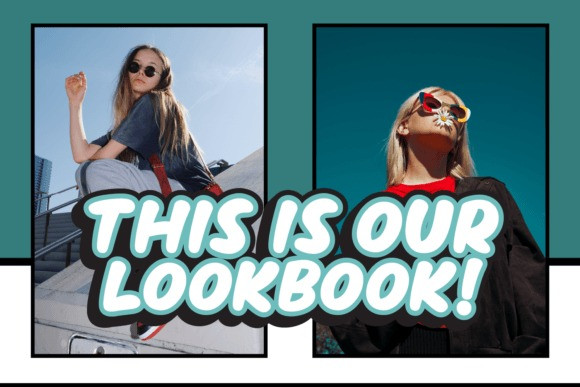
Power Smash Font
Power Smash is a cool and bold display font. Whether you use it for cartoon-related designs, children’s games, or just any creation that requires a playful touch, this font will be an amazing choice.